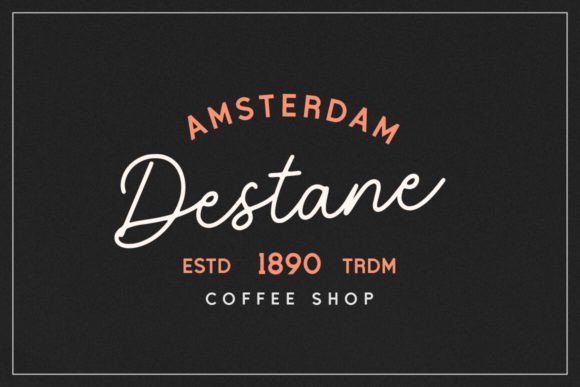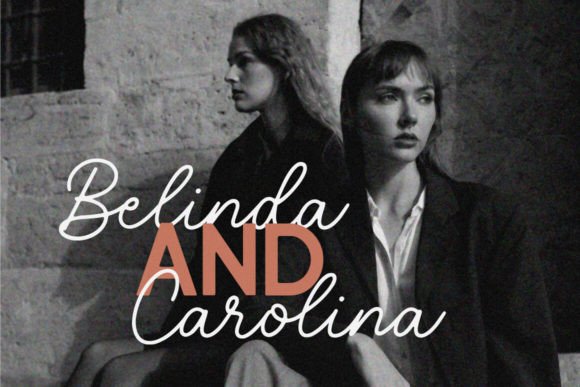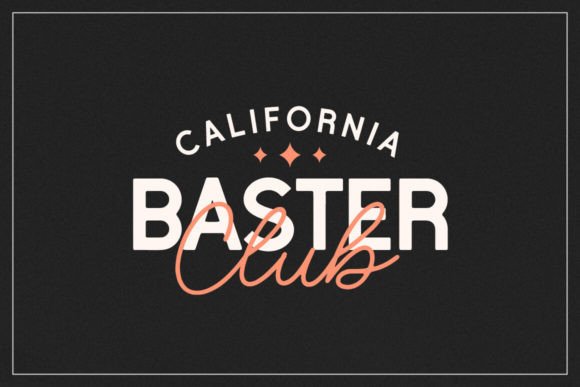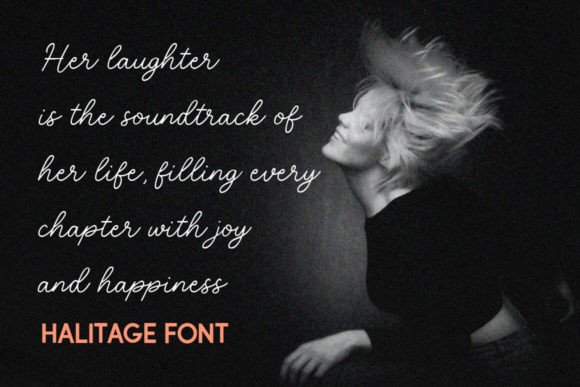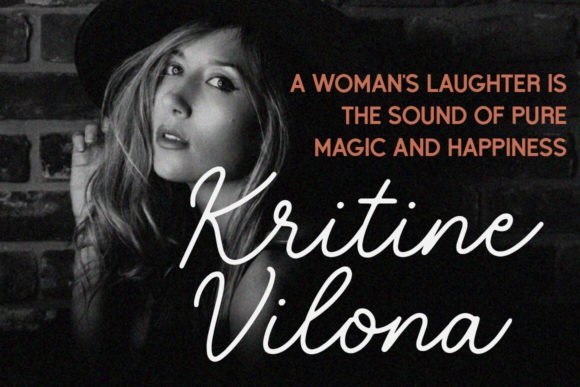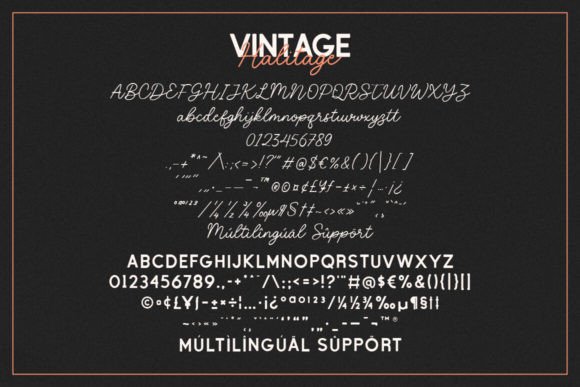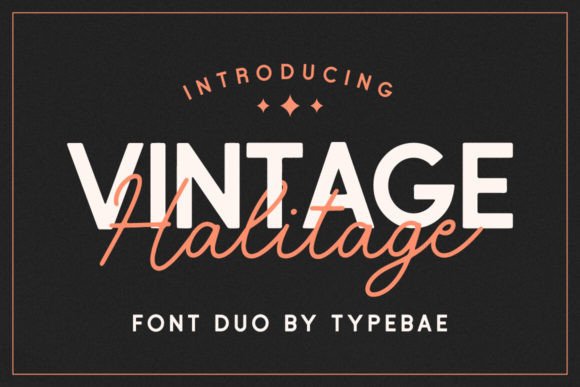
Introducing Halitage Duo Font: A Timeless Combination of Vintage and Contemporary Aesthetics
In the world of typography, finding the perfect font that captures the essence of your creative project can be a daunting task. However, with Halitage Duo Font, designers and crafters can now elevate their work with a harmonious blend of vintage and contemporary aesthetics. Halitage is a thoughtfully crafted duo font that combines a beautiful script with a clean sans-serif font, making it an ideal choice for various creative applications.
The Perfect Pairing: Script and Sans-Serif Fonts
Halitage Duo Font is a masterful combination of two distinct fonts that work in perfect harmony. The script font boasts elegant, flowing lines that evoke a sense of nostalgia and sophistication, while the sans-serif font provides a clean, modern contrast. Together, they create a visually appealing balance that adds depth and character to any design.
Whether used together or apart, Halitage Duo Font offers a level of versatility that is hard to find in other font combinations. Designers can use the script font to add a touch of elegance to a logo or invitation, while the sans-serif font can be used for body text or to provide a clear, concise message. The possibilities are endless, and the results are sure to be stunning.
Key Features of Halitage Duo Font
• Vintage and Contemporary Aesthetics: Halitage Duo Font seamlessly blends vintage and contemporary styles, making it perfect for designers who want to create unique and eye-catching designs.
• Script and Sans-Serif Fonts: The duo font combination offers a beautiful script font paired with a clean sans-serif font, providing a harmonious contrast that adds depth to any design.
• Versatile: Halitage Duo Font can be used for a wide range of creative applications, including branding, logos, invitations, and more.
• Elegant and Modern: The script font features elegant, flowing lines, while the sans-serif font provides a clean, modern contrast.
Creative Applications for Halitage Duo Font
Halitage Duo Font is an incredibly versatile font combination that can be used for a variety of creative projects. Here are a few ideas to get you started:
• Branding: Use Halitage Duo Font to create a unique and memorable brand identity that sets your business apart.
• Logos: The script font is perfect for creating elegant and sophisticated logos that make a lasting impression.
• Invitations: Add a touch of elegance to your invitations with the script font, or use the sans-serif font for a more modern and clean design.
• Packaging: Use Halitage Duo Font to create eye-catching packaging that stands out on store shelves.
Why Choose Halitage Duo Font?
With so many font combinations available, why choose Halitage Duo Font? Here are a few reasons why designers and crafters are falling in love with this versatile font combination:
• Unique and Eye-Catching: Halitage Duo Font offers a unique and eye-catching combination of vintage and contemporary aesthetics that will make your designs stand out.
• High-Quality: The font is carefully crafted to ensure high-quality and clear readability, making it perfect for both digital and print applications.
Halitage Duo Font is a timeless and versatile font combination that is perfect for designers and crafters looking to add a touch of elegance and sophistication to their creative projects. With its harmonious blend of vintage and contemporary aesthetics, this duo font is sure to elevate your designs and make them stand out. Whether used together or apart, Halitage Duo Font is an excellent choice for anyone looking to create unique and eye-catching designs.